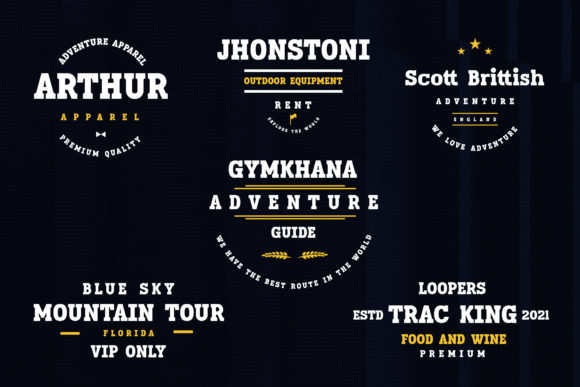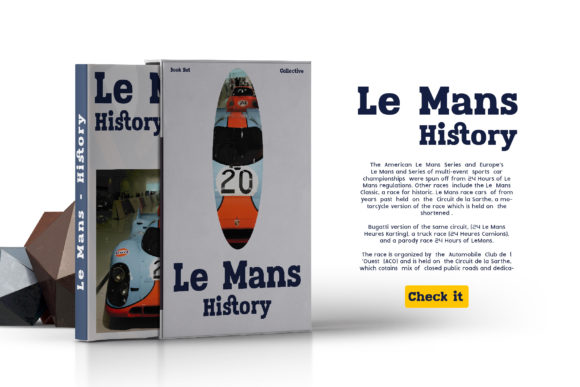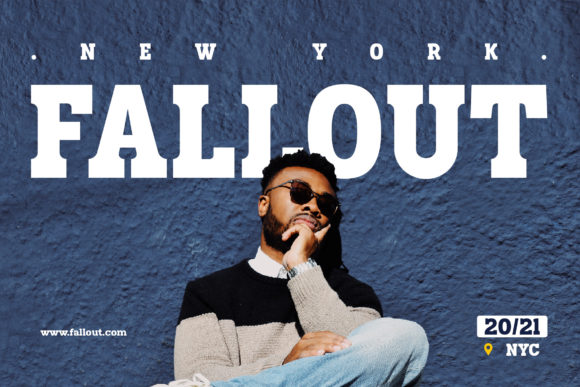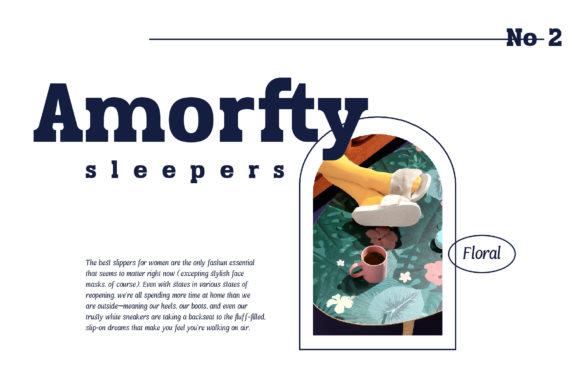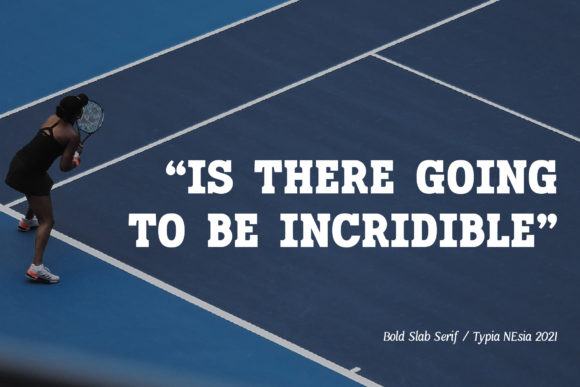
Faltige Font
Faltige is a bold slab serif font. Expertly designed to make your creation look out of this world, this font will look gorgeous on a variety of ideas.
This font is ideal for writing web designs, business cards, or pretty much anything else that requires a unique touch.